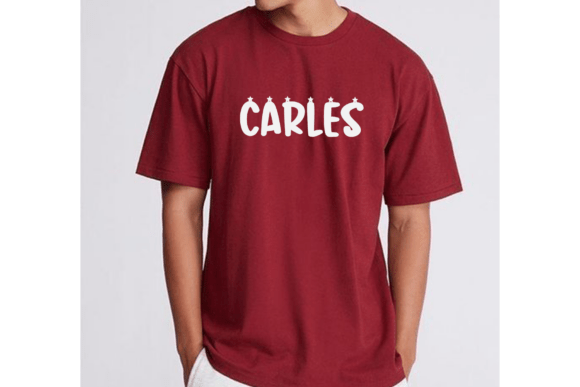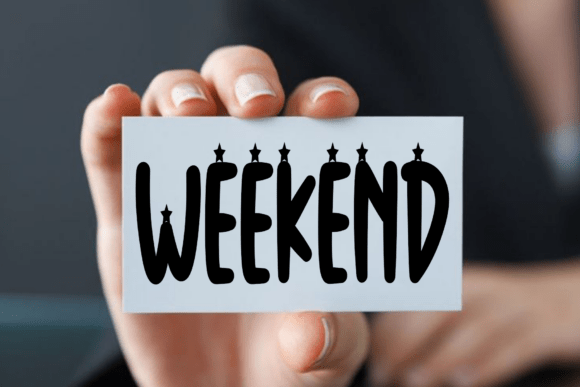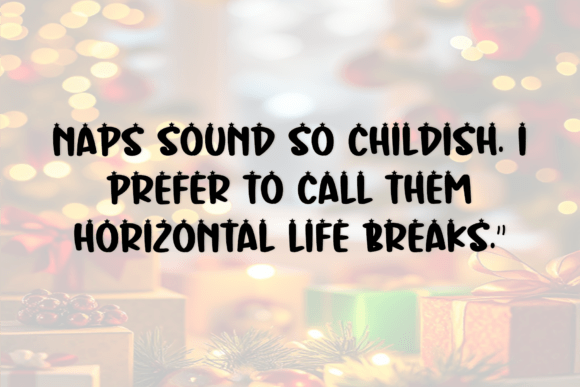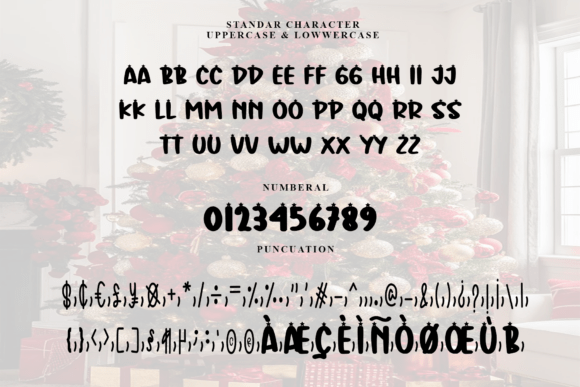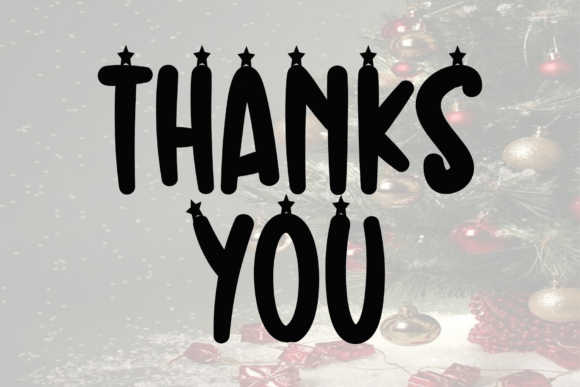
Introducing Christmas Tree Font: The Perfect Blend of Warmth and Personality
Are you looking for a font that can add a personal touch to your designs? Look no further than the Christmas Tree Font, a casual handwritten decorative font that radiates warmth and personality. With its smooth strokes, natural curves, and easy-flowing letterforms, this font captures the charm of authentic handwriting with a modern, approachable feel.
What Makes Christmas Tree Font Special?
Christmas Tree Font is a unique and versatile font that is perfect for a variety of design projects. Its effortless style and versatile character make it ideal for use in quotes, invitations, branding, and social media posts. Whether you’re a designer, crafter, or DIY enthusiast, this font is sure to add a personal and friendly touch to any design.
Key Features of Christmas Tree Font
- Smooth Strokes: The font features smooth, flowing strokes that give it a natural and authentic feel.
- Natural Curves: The curves in the font are effortless and organic, adding to its handmade charm.
- Easy-Flowing Letterforms: The letterforms in the font flow easily into one another, creating a sense of movement and fluidity.
- Readability: Despite its decorative nature, the font remains highly readable, making it perfect for use in a variety of design projects.
- Charm: The font has a certain charm and personality that is hard to find in more traditional fonts.
Uses for Christmas Tree Font
Christmas Tree Font is a versatile font that can be used in a variety of design projects, including:
- Quotes: Add a personal touch to your quotes with this charming font.
- Invitations: Use the font to create beautiful and unique invitations for weddings, parties, and other special events.
- Branding: Add a touch of personality to your brand with this font, perfect for use in logos, packaging, and marketing materials.
- Social Media Posts: Use the font to create eye-catching and engaging social media posts that stand out from the crowd.
Why Designers and Crafters Love Christmas Tree Font
Designers and crafters love Christmas Tree Font for its unique blend of warmth and personality. The font is perfect for those who want to add a personal touch to their designs without sacrificing readability. Whether you’re creating a handmade card, a customized gift tag, or a professional marketing campaign, this font is sure to impress.
Tips for Using Christmas Tree Font
Here are a few tips for getting the most out of Christmas Tree Font:
- Use it sparingly: While the font is beautiful, it can be overwhelming if used too much. Use it sparingly to add a touch of personality to your design.
- Pair it with other fonts: Experiment with pairing Christmas Tree Font with other fonts to create a unique and interesting look.
- Experiment with colors: The font looks great in a variety of colors, so don’t be afraid to experiment and find the perfect hue for your design.
Christmas Tree Font is a unique and versatile font that is perfect for designers, crafters, and DIY enthusiasts. With its smooth strokes, natural curves, and easy-flowing letterforms, it captures the charm of authentic handwriting with a modern, approachable feel. Whether you’re creating a quote, invitation, branding materials, or social media posts, this font is sure to add a personal and friendly touch to any design.